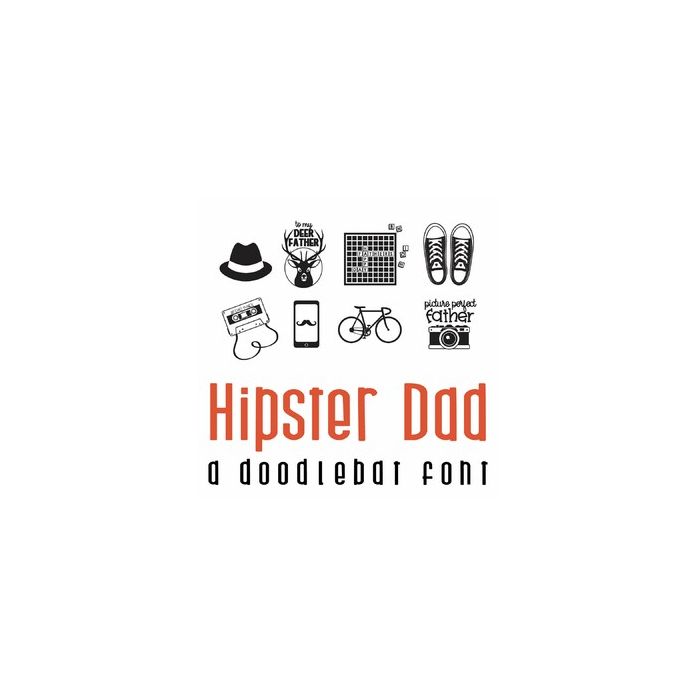
Hipster Dad Doodlebat Font
This fun doodlebat font is perfect for your Hipster Dad on Father's Day. Use this doodlebat to create fun gifts, cards, crafts, decor, planner stickers, scrap book pages and more!